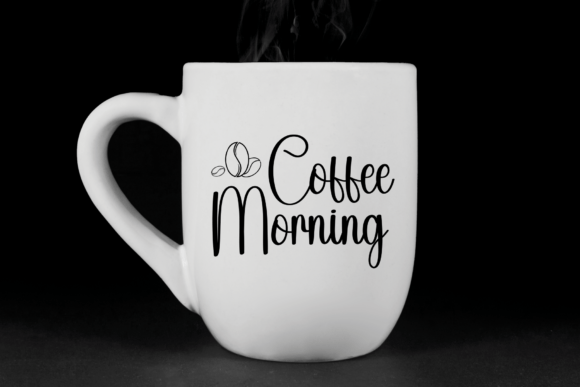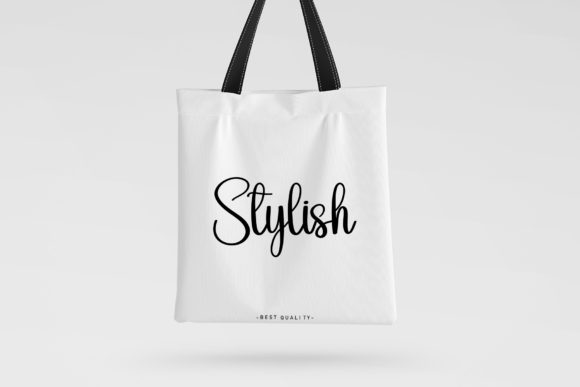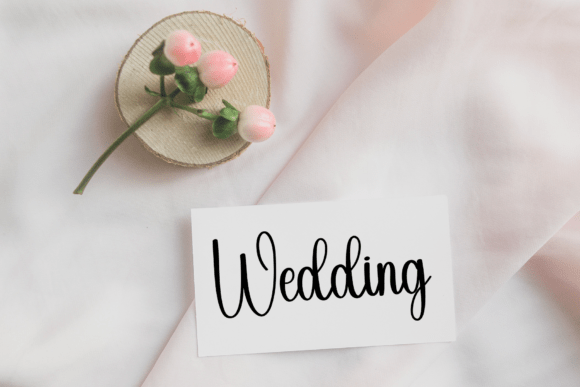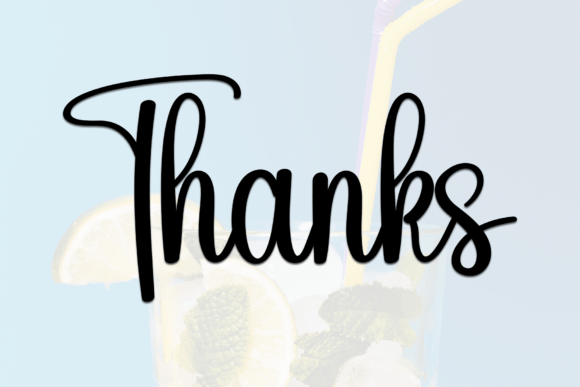
Introducing Drink Font: The Perfect Blend of Relaxed and Luxurious
Are you tired of using the same old fonts for your designs? Look no further than Drink Font, a stylish and versatile handwritten font that’s perfect for adding a touch of elegance and casual charm to your projects. In this article, we’ll dive into the world of Drink Font and explore its features, uses, and benefits for designers and crafters.
What is Drink Font?
Drink Font is a beautiful handwritten font that looks like it was drawn with a marker. Its relaxed and sporty feel makes it an excellent choice for a wide range of design applications, from branding and logos to wedding supplies and greeting cards. With its unique blend of elegance and casualness, Drink Font is sure to elevate your designs and make them stand out.
Key Features of Drink Font
- Handwritten style: Drink Font has a distinctive handwritten look that’s perfect for adding a personal touch to your designs.
- Marker-like feel: The font’s marker-like texture gives it a relaxed and sporty feel that’s ideal for fashion, lookbooks, and marketing promotions.
- Luxurious and elegant: Despite its casual vibe, Drink Font exudes luxury and elegance, making it perfect for high-end designs and branding.
- Versatile: Drink Font can be used for a wide range of design applications, from digital projects to print materials.
Uses of Drink Font
Drink Font is an incredibly versatile font that can be used for various design projects, including:
- Branding and logos: Create a unique and memorable brand identity with Drink Font.
- Wedding supplies: Add a touch of elegance and romance to your wedding designs, such as invitations, programs, and decorations.
- Greeting cards: Create beautiful and heartfelt greeting cards for special occasions.
- Fashion and lookbooks: Use Drink Font to add a stylish and sophisticated touch to your fashion designs and lookbooks.
- Marketing promotions: Elevate your marketing materials, such as brochures, flyers, and posters, with Drink Font’s luxurious and elegant feel.
Benefits of Using Drink Font
So, why choose Drink Font for your design projects? Here are just a few benefits:
- Unique and distinctive: Drink Font’s handwritten style and marker-like texture make it a one-of-a-kind font that will set your designs apart.
- Easy to read: Despite its elegant feel, Drink Font is highly legible and easy to read, making it perfect for body text and headlines.
- Customizable: Drink Font can be easily customized to fit your design needs, from adjusting the font size to adding effects and textures.
- Time-saving: With Drink Font, you can create professional-looking designs in no time, saving you time and effort.
Tips for Using Drink Font
To get the most out of Drink Font, here are a few tips:
- Pair with complementary fonts: Combine Drink Font with other fonts that complement its style and texture.
- Experiment with colors and textures: Add depth and interest to your designs by experimenting with different colors and textures.
- Use for headlines and titles: Drink Font is perfect for headlines and titles, where its elegant and luxurious feel can shine.
- Don’t be afraid to get creative: Drink Font is a versatile font that can be used in many different ways, so don’t be afraid to experiment and try new things.
In conclusion, Drink Font is a unique and versatile font that’s perfect for designers and crafters looking to add a touch of elegance and casual charm to their projects. With its handwritten style, marker-like texture, and luxurious feel, Drink Font is sure to elevate your designs and make them stand out. Whether you’re working on branding, logos, wedding supplies, or marketing promotions, Drink Font is an excellent choice.